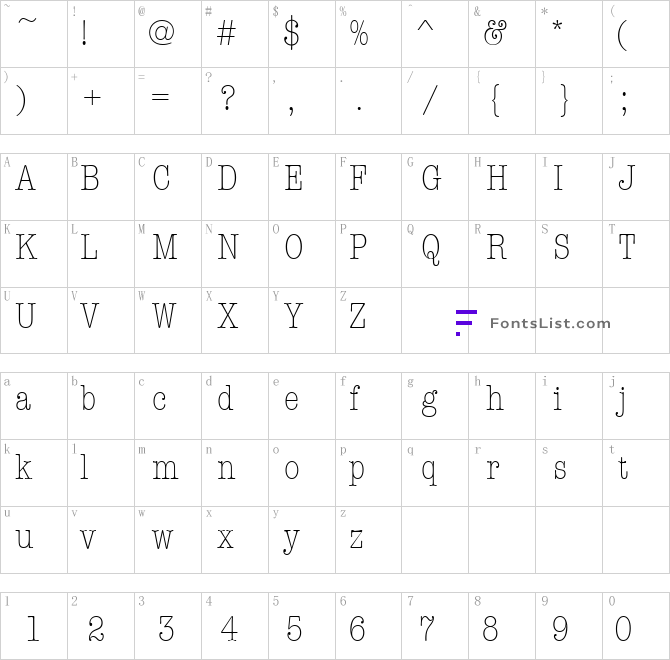
- Font Name:AmTypewriterCdITCTT
- Subfamily:Light
- Subfamily:AmTypewriterCdITCTT Light
- Full Name:AmTypewriterCdITCTT Light
- PostScript:AmTypewriterCdITCTTLight
AmTypewriterCdITCTT-Light.ttf is a very beautiful artistic font, AmTypewriterCdITCTT-Light.ttf is widely used in the design and printing of various books and pictures,AmTypewriterCdITCTT-Light.ttf has a strong visual impact,AmTypewriterCdITCTT-Light.ttf is a commonly used font in newspapers, magazines and books, and is used in posters, e-commerce Poster design, store design, logo design, font design and other fields.AmTypewriterCdITCTT-Light.